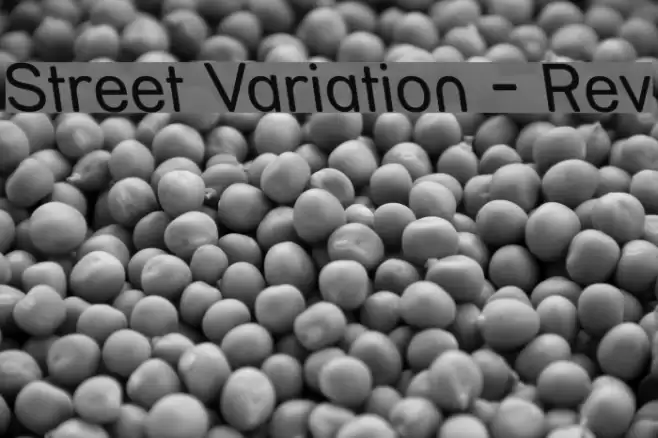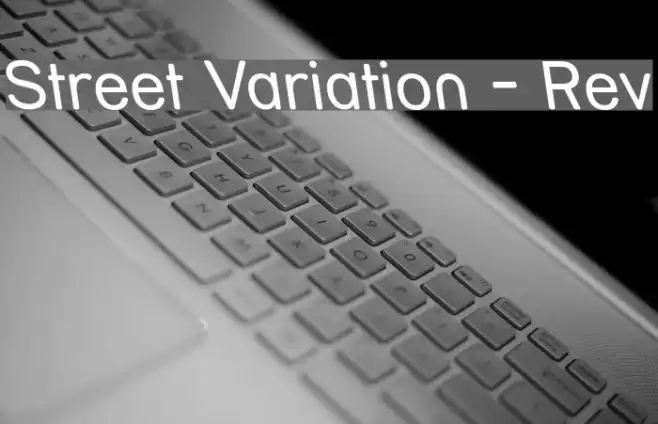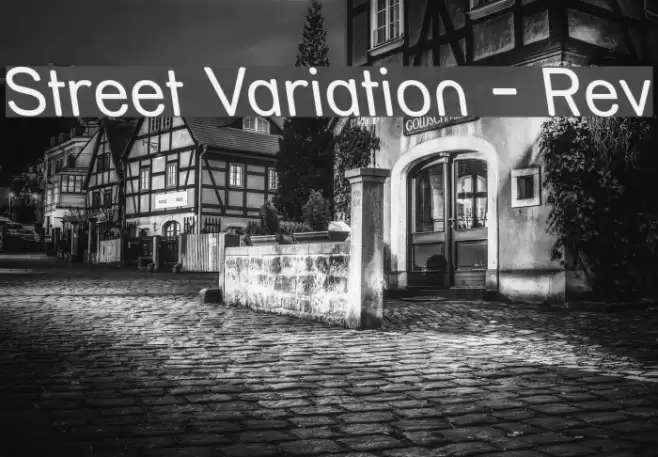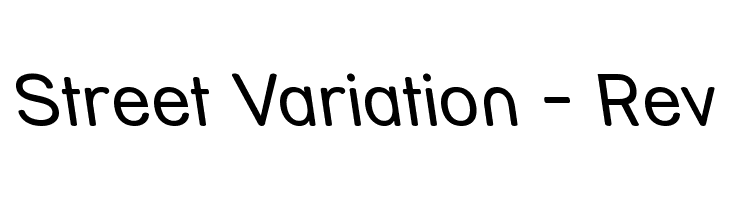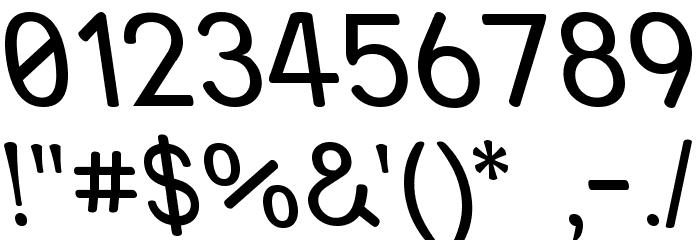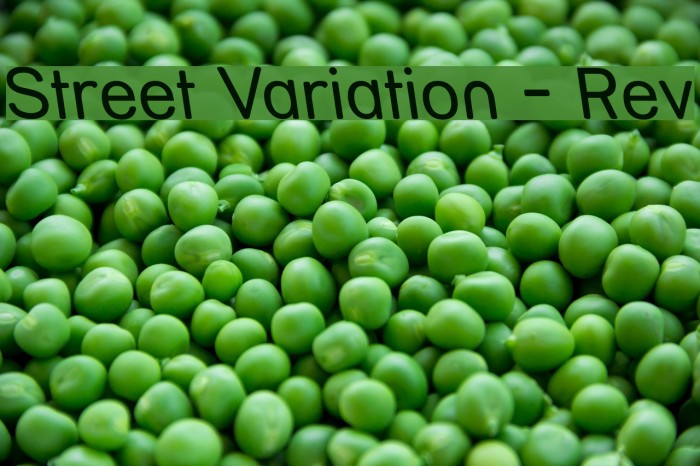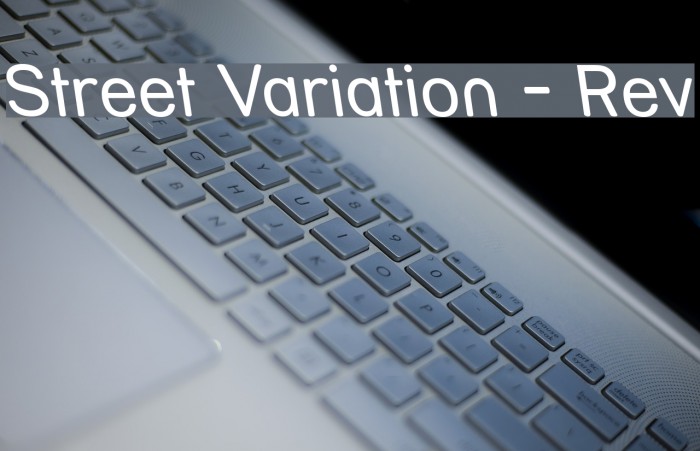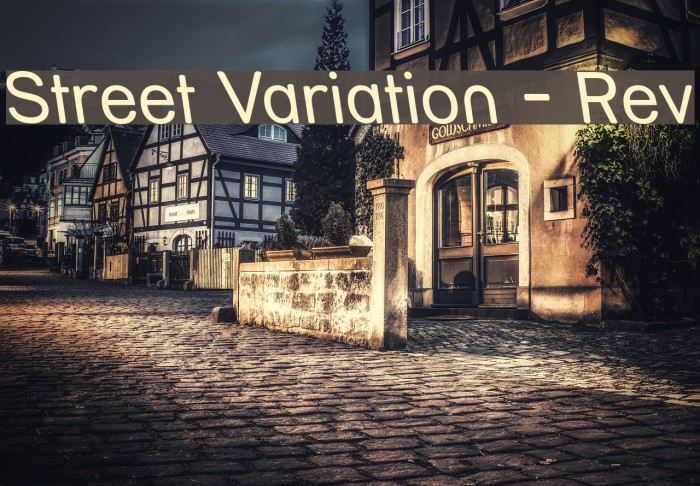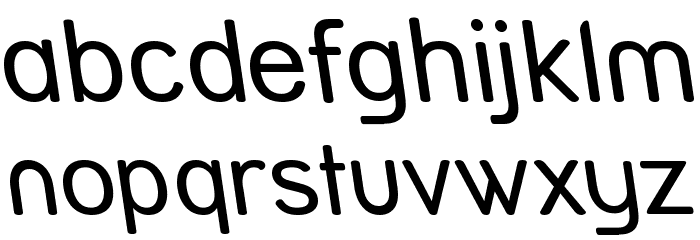
Street Variation - Rev Font
Street Variation - Rev Description
This font features a clean and modern sans-serif style with smooth, rounded edges and uniform stroke widths. The characters are evenly spaced, providing a balanced and harmonious appearance. The uppercase letters are bold and prominent, while the lowercase letters maintain a consistent height, enhancing readability. The numerals are clear and distinct, matching the overall aesthetic of the alphabet. Special characters are well-integrated, maintaining the font's cohesive look. This font is versatile, suitable for various design applications, from digital to print media.
A modern, rounded sans-serif font with uniform strokes and balanced spacing from Uncategorized fonts.
- Proposed Projects: Ideal for branding, web design, advertising, and user interfaces due to its clarity and modern appeal.